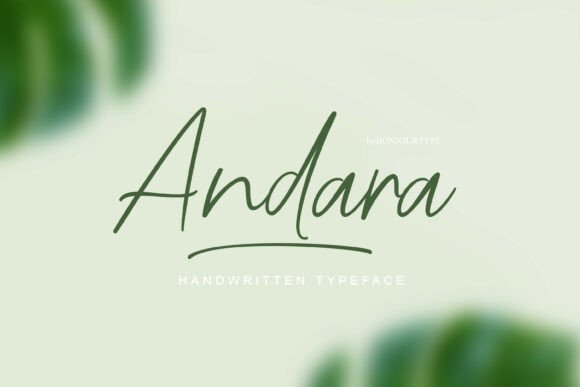
Discover the Unique Charm of Andara Font: Elevate Your Brand with a Handwritten Touch
In the world of modern branding, a distinctive visual identity is crucial for standing out in a crowded market. Typography plays a pivotal role in this quest for uniqueness, and the right font can make all the difference. This is where Andara Font comes into play—a handwritten font specifically designed to infuse modern branding with a natural, hand-drawn charm. In this article, we’ll explore the features, benefits, and versatility of Andara Font, and why it has become a favored choice among creative agencies and designers.
The Essence of Andara Font
Andara Font is more than just a typeface; it’s a tool for creating a memorable brand impression. Its unique, natural hand-drawn touch sets it apart from more conventional fonts, offering a freshness and authenticity that can significantly enhance a brand’s visual identity. The handcrafted nature of Andara gives it a distinctive character that invites people to take a closer look, fostering a deeper connection between the brand and its audience.
Versatility Across Applications
One of the standout features of Andara Font is its incredible versatility. Whether you’re looking to create a logo, signature, portfolio, website, or any form of print material, Andara proves to be an excellent choice. Its flexibility extends to various applications, including:
- Logos and Signatures: Create unique and memorable brand identifiers.
- Portfolios and Websites: Add a personal touch to your online presence.
- Print Materials: Enhance brochures, flyers, and business cards with a distinctive look.
- Headers and Magazines: Use Andara to give your content a standout title.
- Book Covers: Attract readers with a charming and eye-catching title page.
- T-shirts and Crafts: Perfect for designers looking to create custom apparel and handmade crafts.
- Cosmetic Packaging: Elevate your brand with sophisticated and appealing packaging.
Why Andara Font is Favored by Creative Agencies
Creative agencies are always on the lookout for fonts that can help their clients stand out. Andara Font’s unique characteristics make it an ideal choice for several reasons:
- Distinctiveness: In a sea of generic fonts, Andara offers a breath of fresh air with its hand-drawn aesthetic.
- Flexibility: The font’s versatility means it can be used across a wide range of projects, making it a valuable addition to any designer’s toolkit.
- Emotional Connection: The natural, human touch of Andara can help brands establish a more personal connection with their audience.
Creating a Wide Range of Logo Styles with Andara
Andara’s design allows for a surprising amount of flexibility when it comes to logo creation. Its hand-drawn nature means that it can be adapted and manipulated to suit various brand personalities and styles. Whether you’re aiming for something playful and whimsical or elegant and sophisticated, Andara provides the perfect foundation for creating a logo that truly represents your brand.
Andara Font is a powerful tool for anyone looking to elevate their brand with a unique and modern handwritten touch. Its natural charm, versatility, and the ability to create a wide range of logo styles make it an invaluable asset for designers and crafters. Whether you’re working on a branding project, crafting a personal portfolio, or creating custom products, Andara Font can help you achieve a distinctive look that captures attention and fosters a deeper connection with your audience. As a favored choice among creative agencies, Andara is poised to become a staple in your font collection, offering endless possibilities for creative expression and brand storytelling.